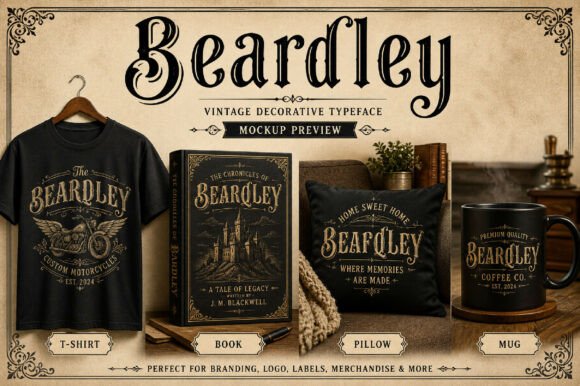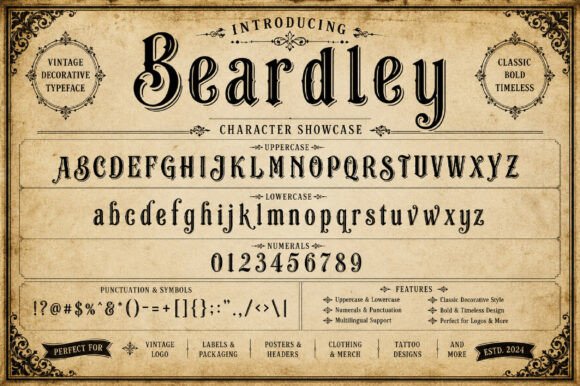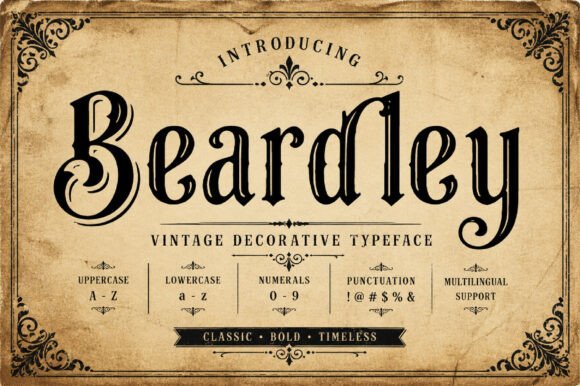
Introducing Beardley Font: Elevate Your Designs with Elegance and Character
In the world of typography, few fonts manage to capture the essence of elegance, character, and vintage charm as effectively as Beardley. This distinctive ornamental serif font is designed to bring a touch of sophistication and timelessness to your designs, making it an excellent choice for a wide range of projects. From logos and posters to packaging, editorial layouts, labels, and branding materials, Beardley is the perfect addition to your typographic arsenal.
The Unique Characteristics of Beardley Font
Beardley is not just another serif font; it’s a masterpiece of typographic design that combines classic elements with decorative flair. Its decorative swashes, curved terminals, and classic serif structure work in harmony to create a rich and eye-catching look that feels both artistic and timeless. The refined yet expressive style of Beardley makes it perfect for projects that need a strong and sophisticated visual identity.
Decorative Swashes and Curved Terminals
One of the standout features of Beardley is its decorative swashes, which add a level of elegance and sophistication to any design. These swashes can be used to create a sense of movement and fluidity, drawing the viewer’s eye through the text. The curved terminals of Beardley add a touch of softness and approachability, balancing out the boldness of the font’s structure.
Classic Serif Structure
The classic serif structure of Beardley provides a sense of familiarity and tradition, making it perfect for projects that require a sense of heritage or nostalgia. The serif structure also helps to improve readability, making Beardley suitable for both print and digital use.
The Benefits of Using Beardley Font
So, why choose Beardley for your next design project? Here are just a few benefits of using this exceptional font:
- Elegance and Sophistication: Beardley adds a touch of elegance and sophistication to any design, making it perfect for high-end brands and luxury products.
- Timeless Appeal: The classic serif structure and decorative swashes of Beardley ensure that it will remain a stylish choice for years to come.
- Versatility: Beardley is suitable for a wide range of projects, from logos and posters to packaging and editorial layouts.
- Readability: Despite its decorative flair, Beardley remains highly readable, making it perfect for both print and digital use.
How to Use Beardley Font in Your Designs
Beardley is an incredibly versatile font that can be used in a variety of ways. Here are a few ideas to get you started:
- Logos and Branding: Use Beardley to create a sophisticated and elegant logo that reflects your brand’s values and personality.
- Posters and Flyers: Add a touch of vintage charm to your posters and flyers with Beardley’s decorative swashes and curved terminals.
- Packaging: Use Beardley to create eye-catching packaging that stands out on store shelves.
- Editorial Layouts: Add a touch of elegance to your editorial layouts with Beardley’s classic serif structure and decorative swashes.
In conclusion, Beardley is a distinctive ornamental serif font that is sure to elevate your designs with its elegance, character, and vintage charm. With its decorative swashes, curved terminals, and classic serif structure, Beardley creates a rich and eye-catching look that feels both artistic and timeless. Whether you’re a designer, craftsperson, or simply someone who appreciates beautiful typography, Beardley is an excellent choice for any project that requires a strong and sophisticated visual identity.